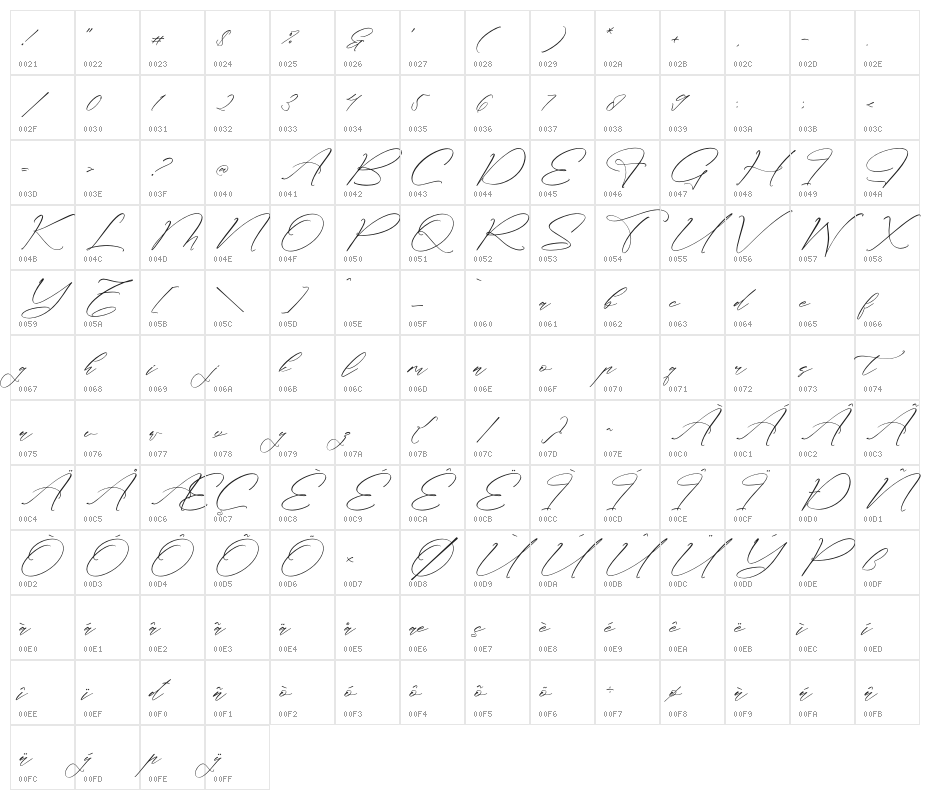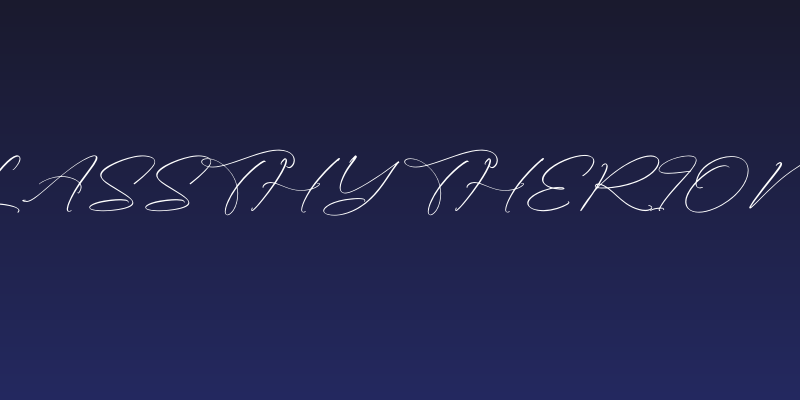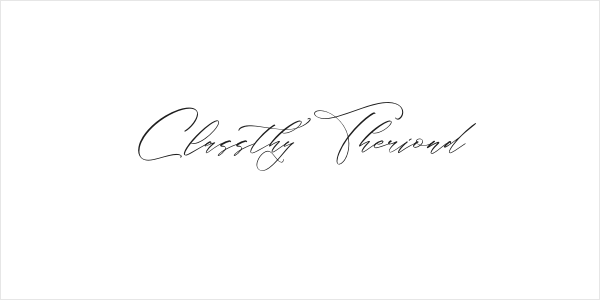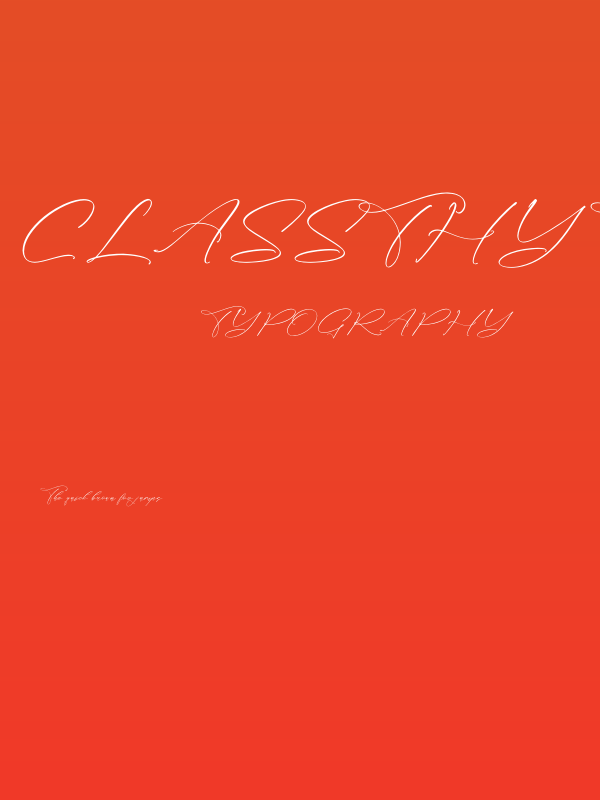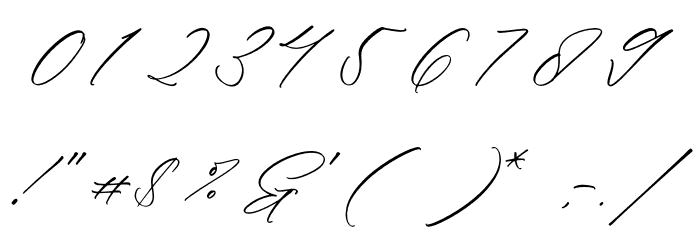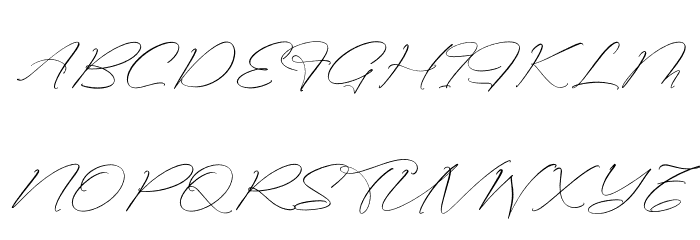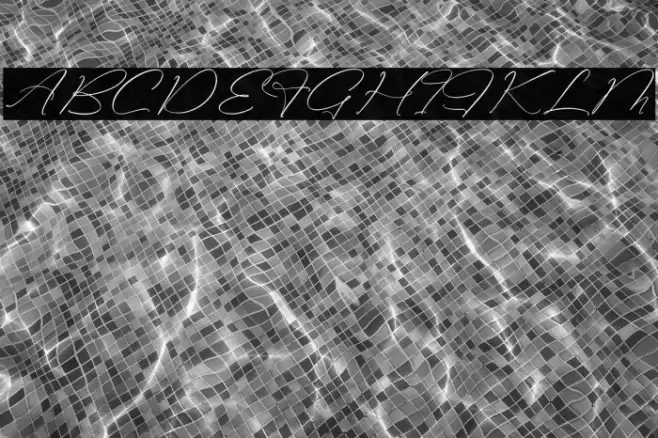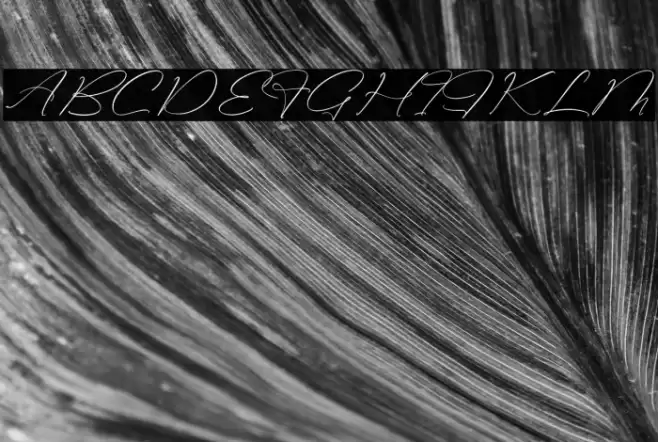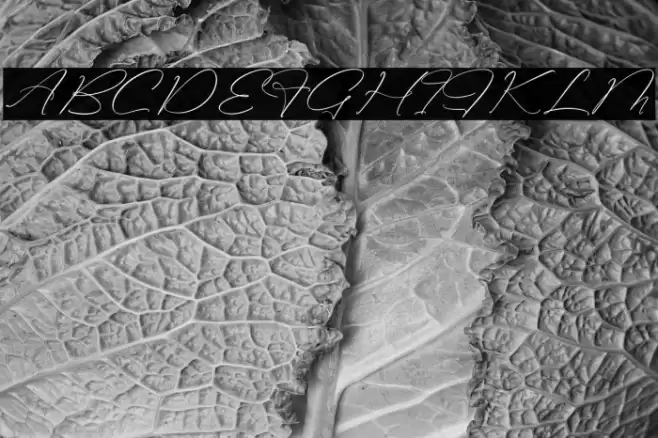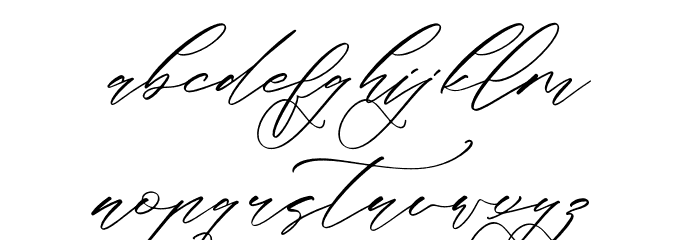
Classthy Theriond Font
✎ Script
| Gesamtstil | Elegant, Sophisticated |
| Anwendungsfall | Invitations, Branding, Stationery |
| Vorgeschlagene Projekte | Ideal for wedding invitations, luxury branding, elegant stationery, and high-end product packaging. |